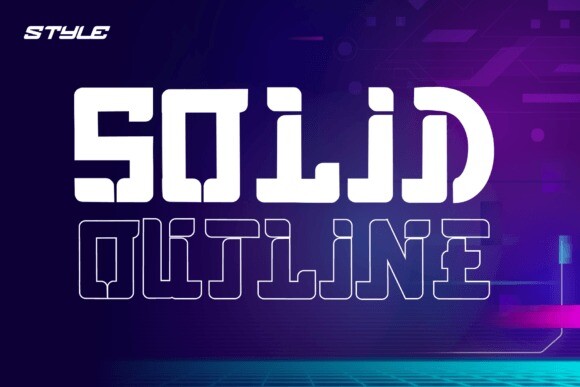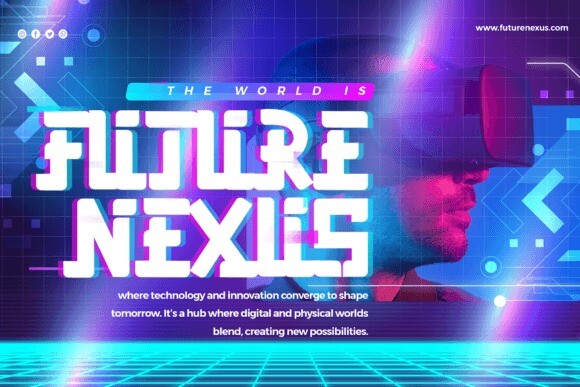
Astro Volta Font
Astro Volta presents a modern future-inspired display font. It is uniquely articulated in two set variants – the robust solidity and the elusive outline, defining the essence of contemporary novelty. Astro Volta encapsulates the dynamic boldness of science-fiction, shaping a striking aesthetic for your projects.